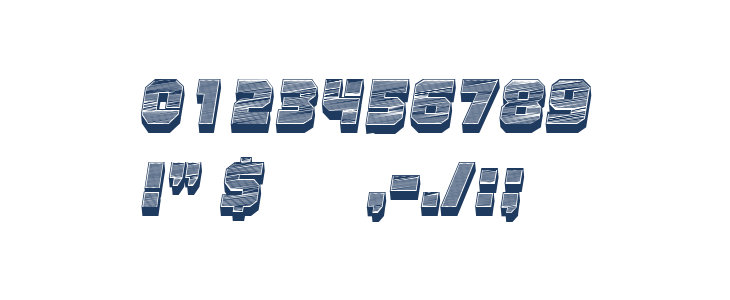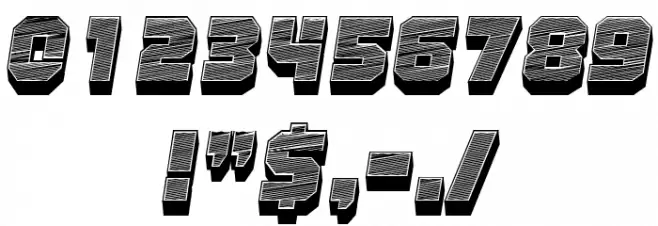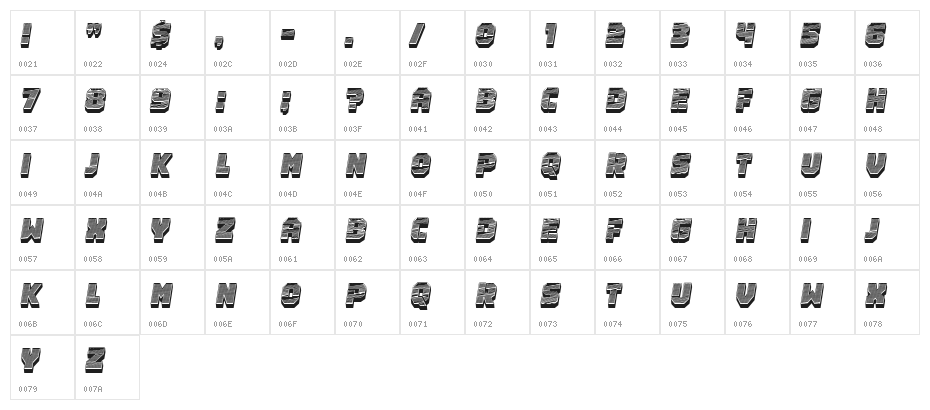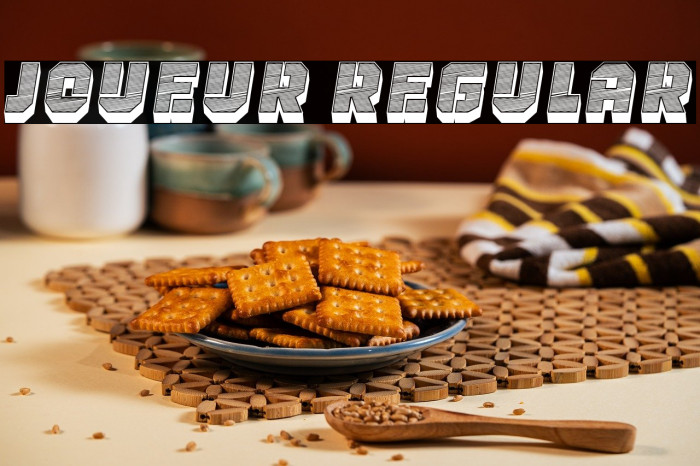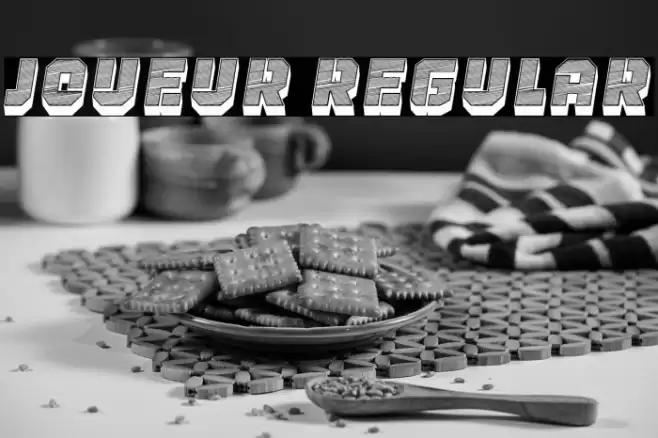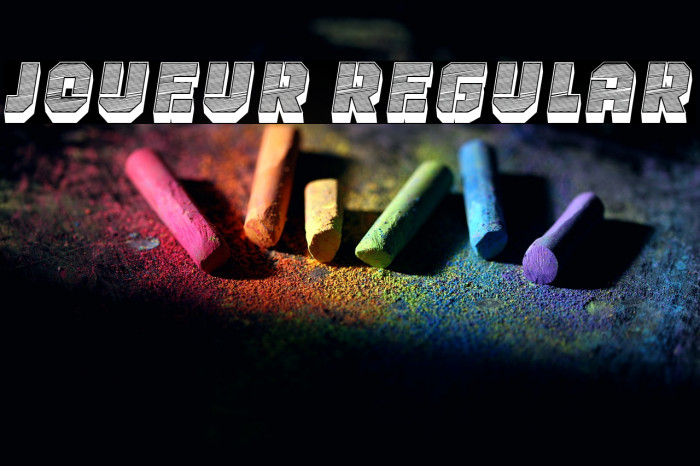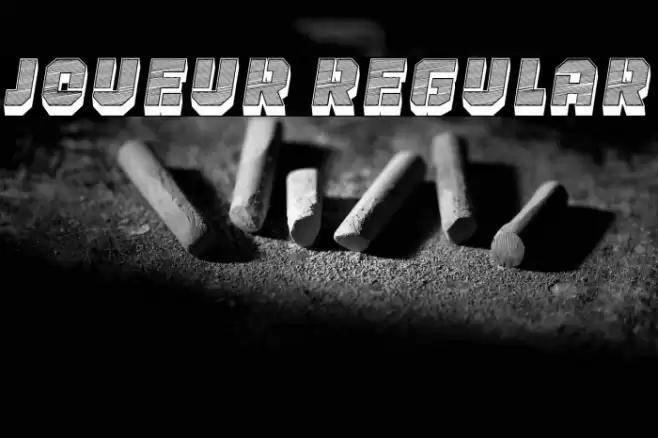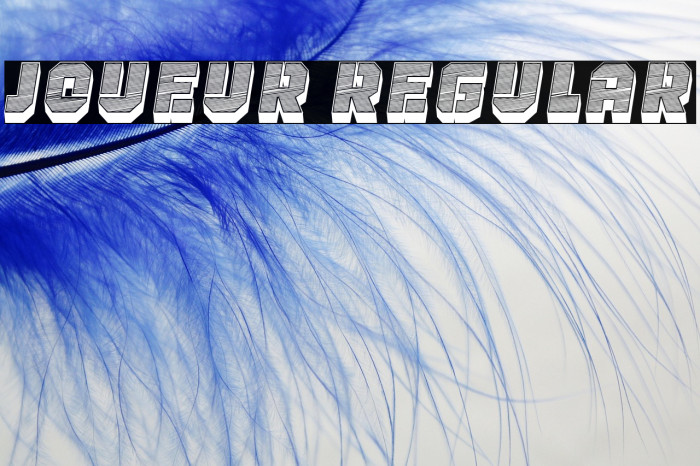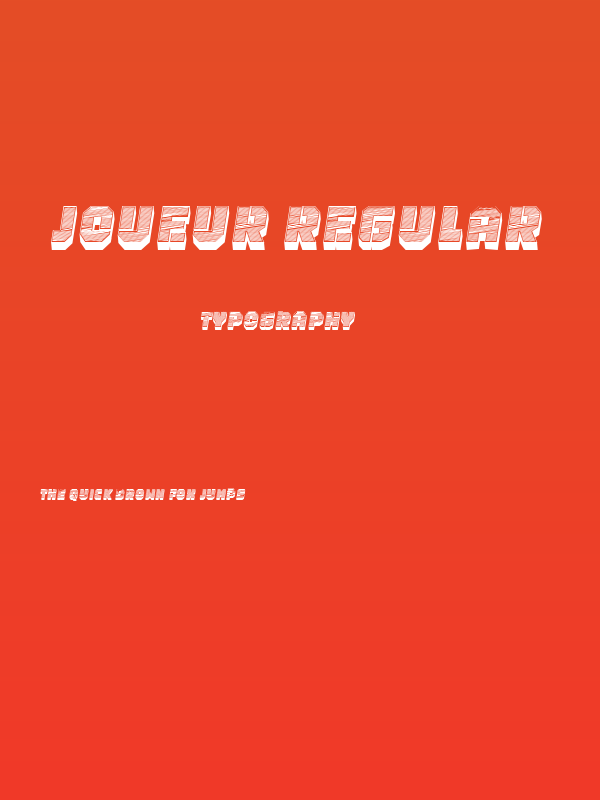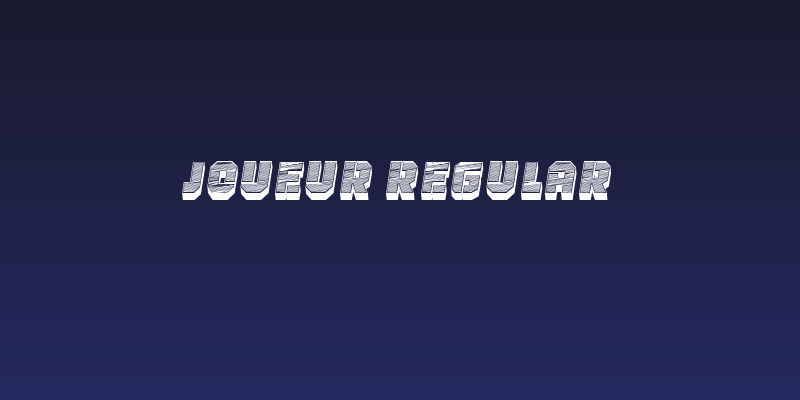
Joueur Regular Font
Joueur Regular Description
This font features a bold, three-dimensional design with a striped pattern that gives it a dynamic and playful appearance. The letters are blocky and robust, with a strong presence that makes them stand out. The 3D effect is enhanced by the shadowing, which adds depth and a sense of movement. The uppercase and lowercase letters maintain a consistent style, and the numerals and special characters are designed to match the overall aesthetic. This font is ideal for projects that require a bold and eye-catching display, such as posters, headlines, and branding materials.
| Proposed Projects | Ideal for posters, headlines, branding, and any project needing a bold, eye-catching display. |